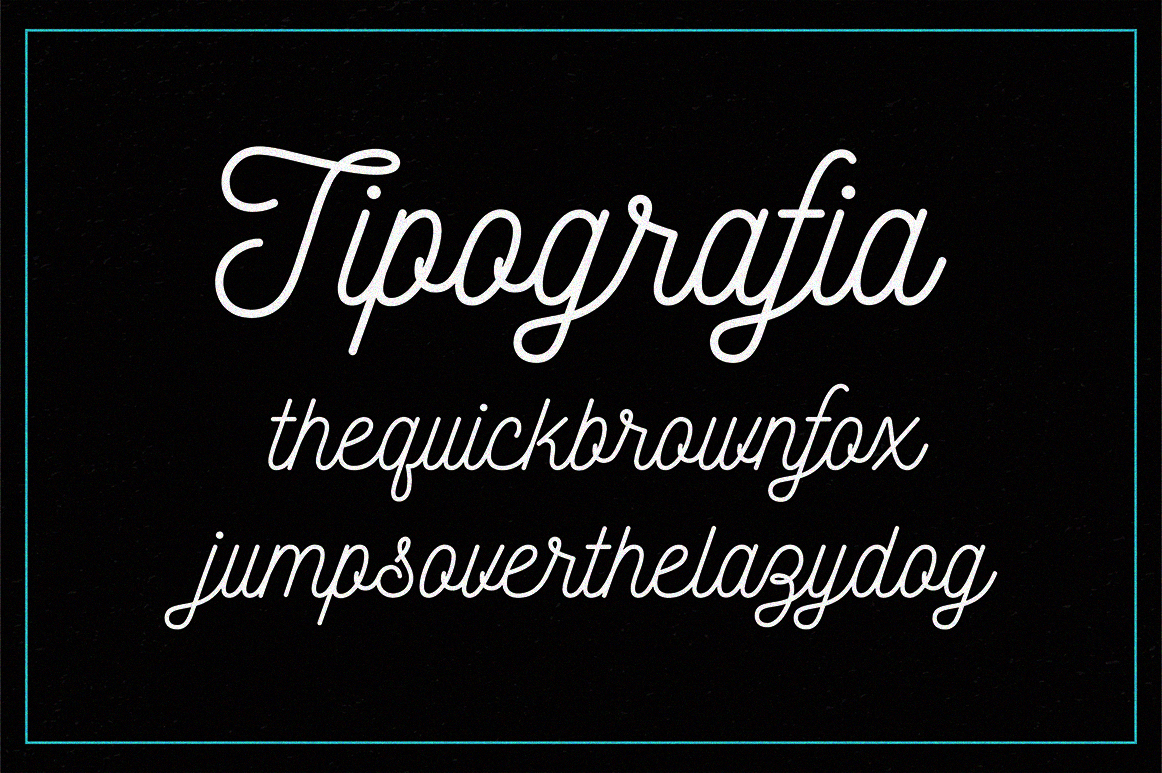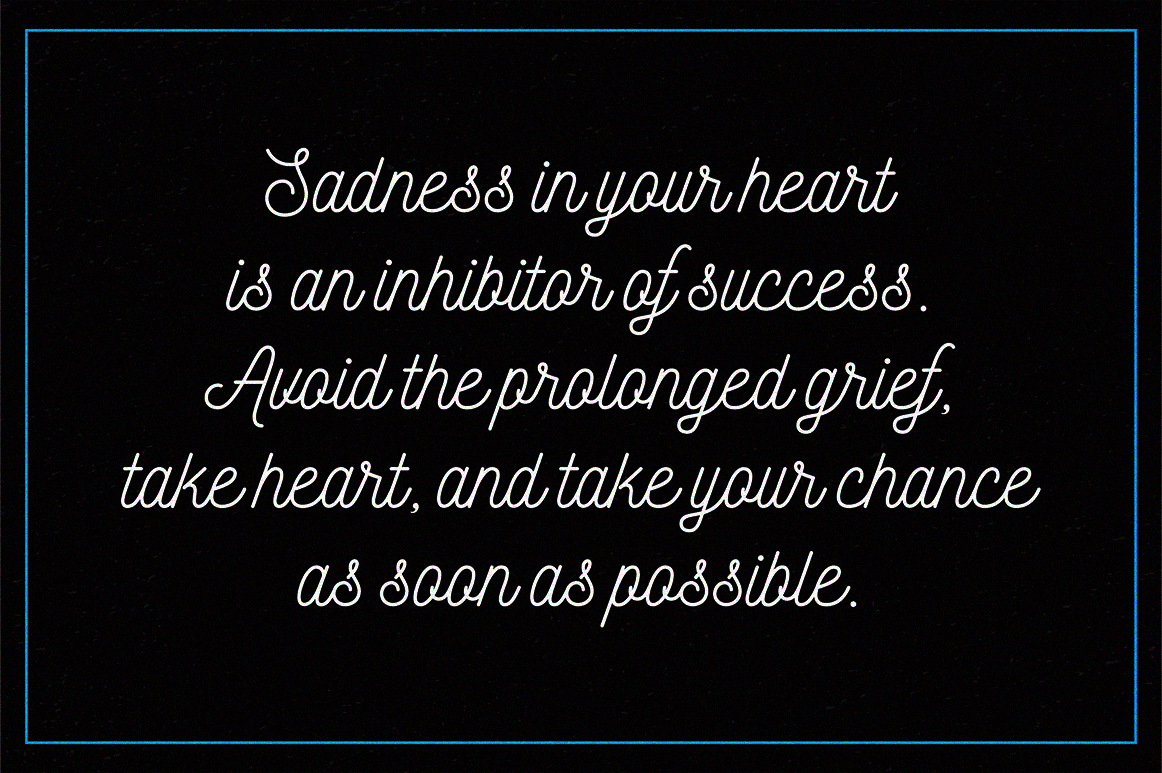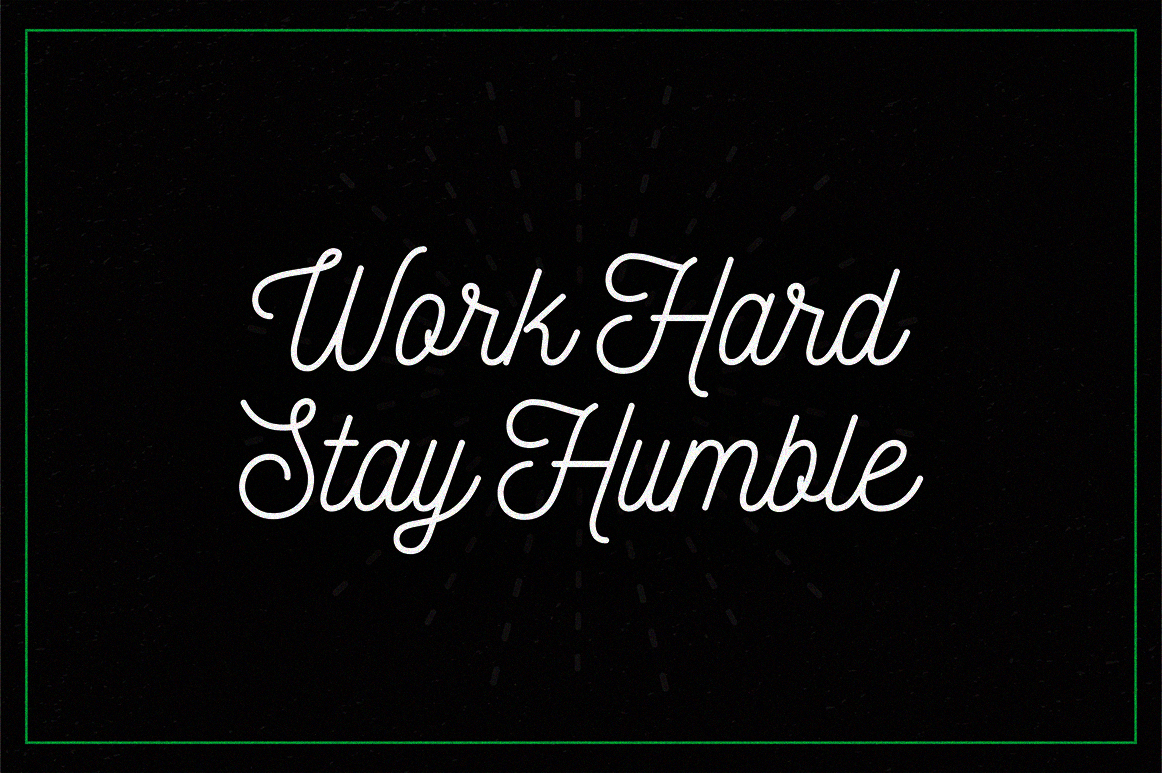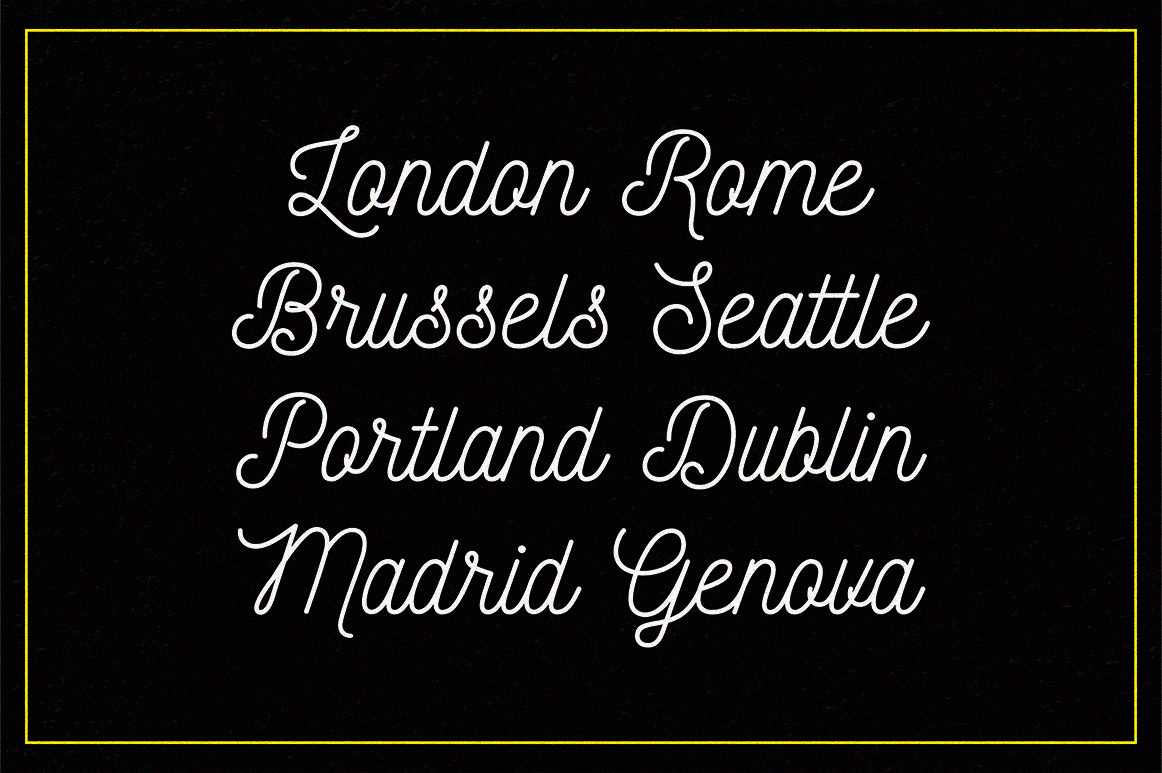
Nickainley – Free Script Font
Nickainley  is a Monoline Script font from Seniors. Handwriting font with a touch of classic and vintage. In uppercase, lowercase characters, numeral and punctuation. Can be used for various purposes: logos, badges, wedding invitations, t-shirts, letterhead, signage, labels, news, posters, badges etc. Download and enjoy 😉